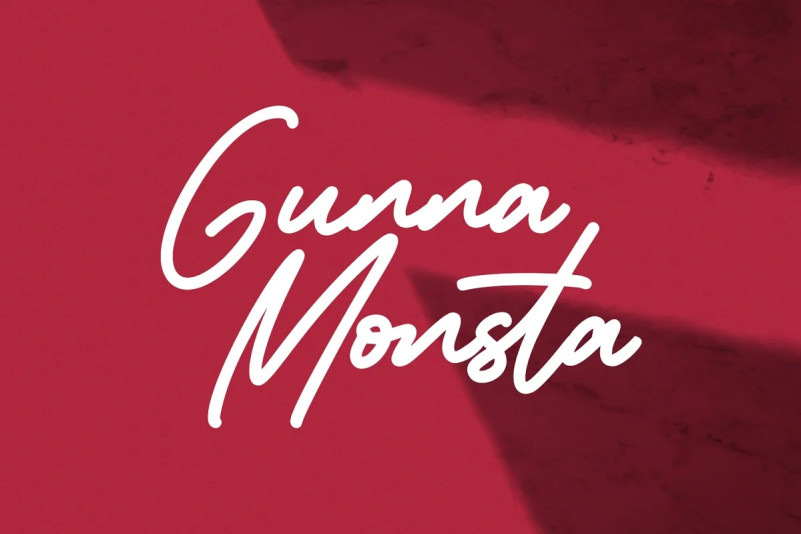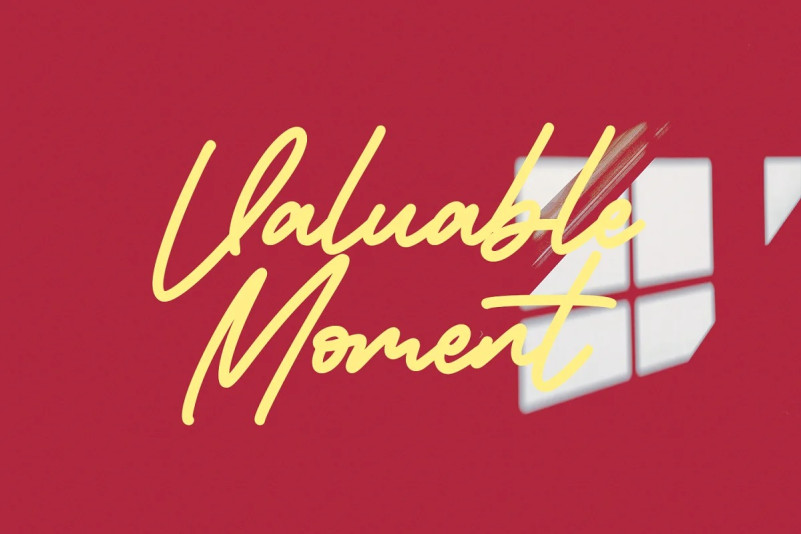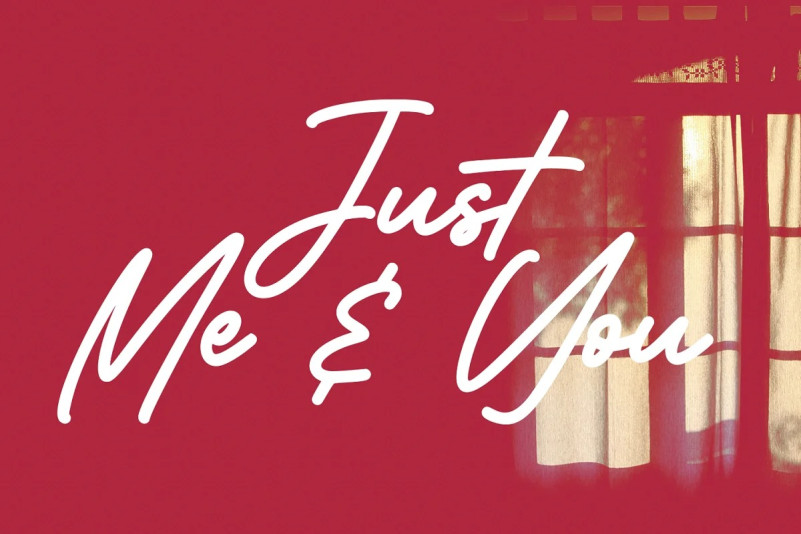
Botanity Script Font is a genuinely original and modern handwritten script typeface crafted & designed by Maulana Creative. With medium mono-line stroke, fun character with a bit of ligatures. To give you an extra creative work. Botanity font support multilingual more than 100+ language. This font is good for logo design, Social media, Movie Titles, Books Titles, a short text even a long text letter and good for your secondary text font with sans or serif. Make a stunning work with Botanity font.
Botanity